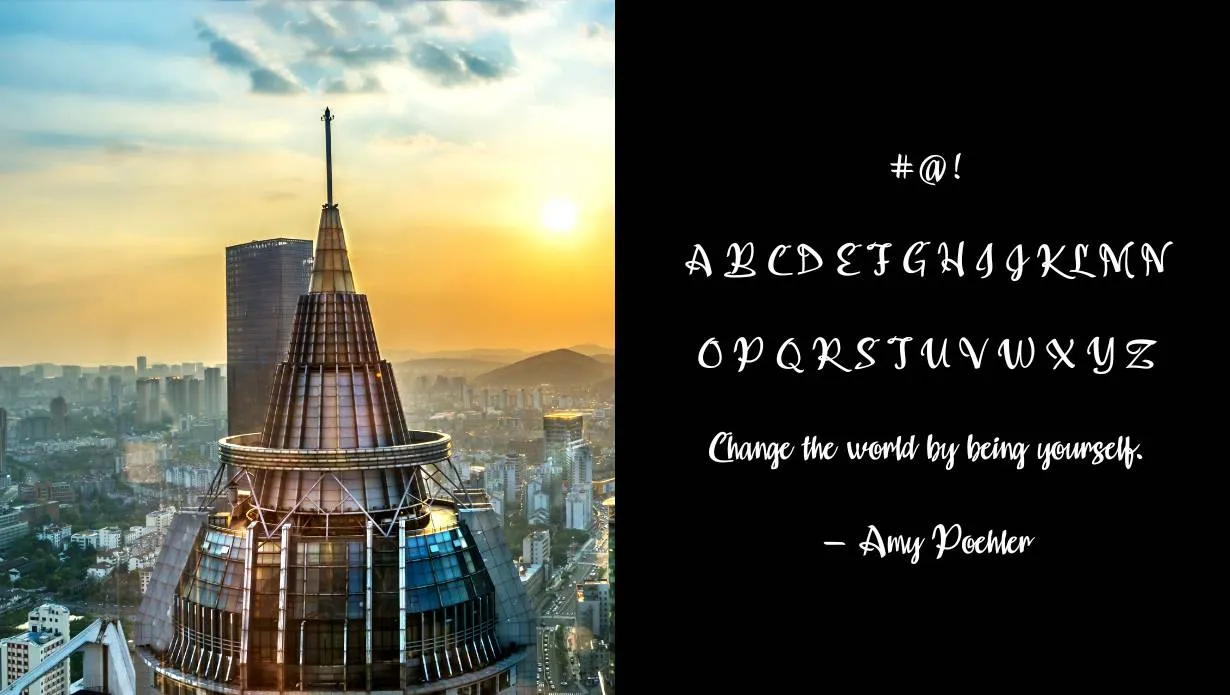
Kompar Font is a calligraphy typeface that was created by Mans Greback in the 20th century. The font was designed to be used for printing and has a wide range of glyphs. The unique features of this font include its high readability and its ability to be used in a variety of settings.
This font has very elegant glyphs because it has joining letters that give your project an impressive texture.
It is quite similar to the blooming elegant font and it has a pairing personality with that, so you can combine them and make something crazy stuff.
Name | Kompar Font |
Designer | Mans Greback |
Style | Calligraphy |